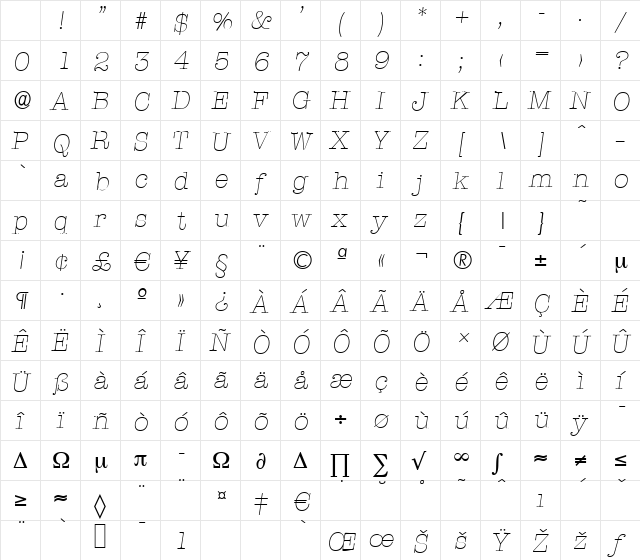
Complete TypewriterSerial-Xlight Italic glyph index. Displaying only characters natively supported by TypewriterSerial-Xlight Italic font.
TypewriterSerial-Xlight uses fixed-width spacing throughout, giving it the structured, systematic character associated with coding environments and technical documentation. The slanted form adds forward momentum and visual energy. Its slender proportions lend an understated elegance to any composition.